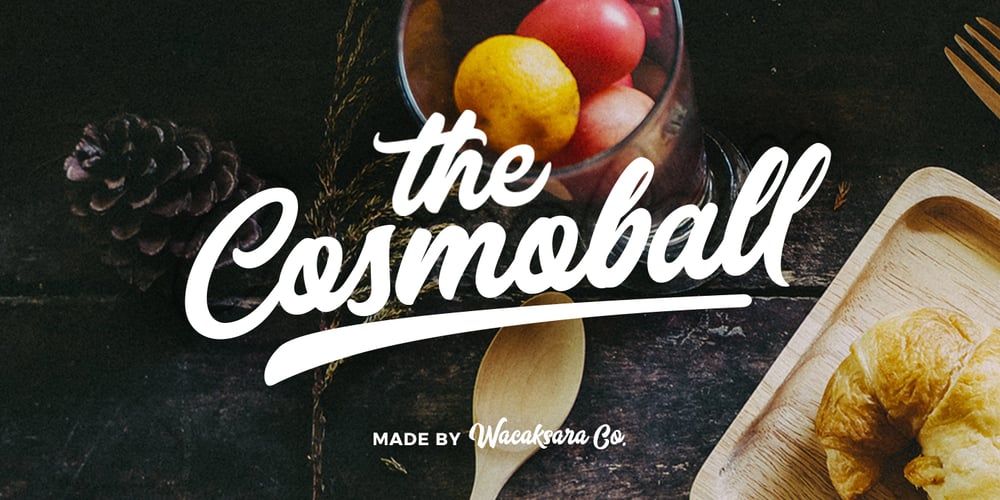
Cosmoball Font Family was designed by Aliv Pandu, Hamam Jauhari and published by Wacaksara co. Cosmoball contains 3 styles and family package options. Introducing Cosmoball, a bold connected script font inspire by a good smell and delicious taste of pancake, with a clear style and dramatic movement this font is great for your next creative project. Cosmoball comes with uppercase, lowercase, numerals, punctuations in script and sans version and so many variations on each characters include opentype alternates, common ligatures and also additional swash to let you customise your designs. Perfect to use for Logotype, Letterhead, Poster, Apparel Design, Label and etc.